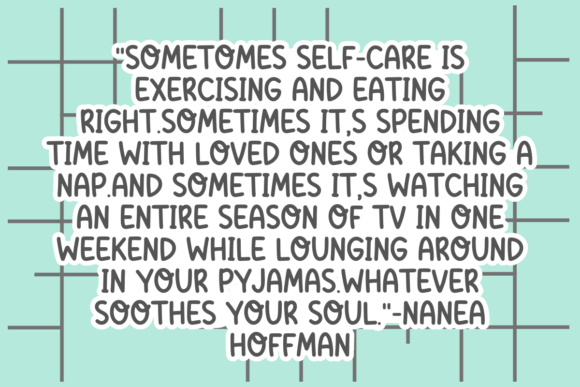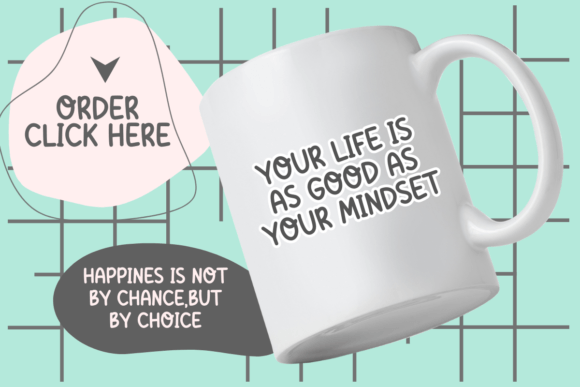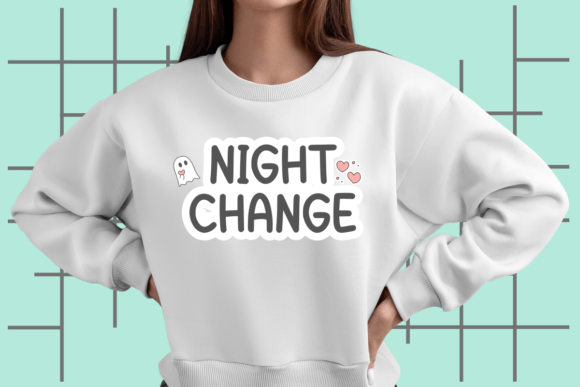
Introduction to Night Starts Font
As I sat at my desk, surrounded by scattered papers and colorful pens, I couldn’t help but feel a rush of excitement as I started brainstorming ideas for my next creative project. The blank page in front of me seemed to whisper, “What will you create today?” And that’s when I remembered the perfect font to bring my vision to life – Night Starts Font. This charming, handwritten font has a way of adding a touch of whimsy and personality to any design.
With its natural, playful strokes and feminine touch, Night Starts Font is the perfect addition to any creative project. Whether you’re working on a journal, scrapbook, or planner, this versatile font is sure to elevate your design and make it truly special. And the best part? It’s available for free download, making it an invaluable resource for designers looking to add a high-quality touch to their work.
Key Features of Night Starts Font
- High-quality font designed for creative projects with a focus on a transparent background, allowing for versatile usage.
- Unique characteristic: Night Starts Font features a subtle, textured effect that adds depth to any creative project.
- Size: The font includes multiple weights and styles, ranging from Thin to Extra Bold, providing flexibility for various design needs.
Honest Review: Night Starts Font
As a designer, I’m always on the lookout for unique and versatile fonts to elevate my creative projects. Recently, I stumbled upon the Night Starts Font, and I’m excited to share my thoughts on this free download.
One of the things that stands out about Night Starts Font is its high-quality design. The font is well-crafted, with a clear and transparent background that makes it perfect for use on dark or light backgrounds. The subtle texture and nuances in the font add depth and visual interest to any design project.
What works well: ✨ The Night Starts Font is highly legible, making it an excellent choice for body text, headings, and even display typography. Its modern aesthetic and versatile style make it suitable for a wide range of creative projects, from digital design to print materials.
- Legible and versatile
Limitations: ⚠️ While the Night Starts Font is an excellent addition to any design library, it’s not without its limitations. The font is relatively limited in its character set, which may make it less suitable for complex or lengthy text-based projects.
Overall, I’m impressed with the Night Starts Font. Its unique design, high-quality construction, and free download make it a valuable design resource for any creative project. I’m excited to see how it will elevate my future designs!
Night Starts Font
Night Starts Font is a high-quality design resource perfect for creative projects that require a unique touch. With its transparent background, this font offers endless possibilities for customization.
Night Starts Font is ideal for:
- Designing posters and flyers for events or promotions.
- Creating unique social media graphics and posts.
- Developing branding materials for businesses and startups.
Conclusion
Night Starts Font is a valuable design resource that can elevate your creative projects to the next level. With its transparent background and high-quality design, it’s perfect for designers and non-designers alike.